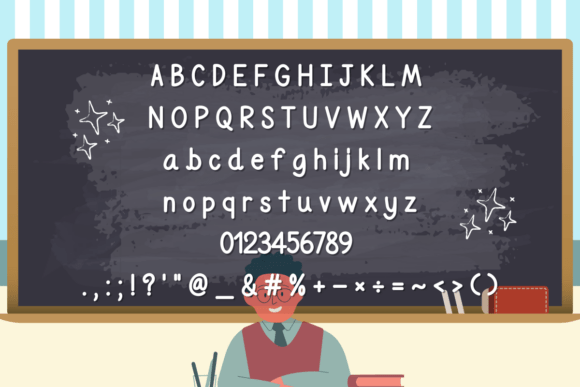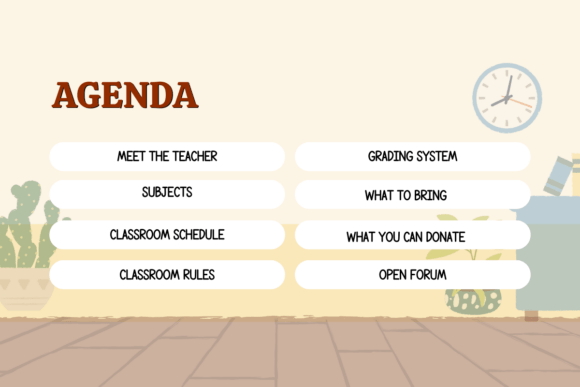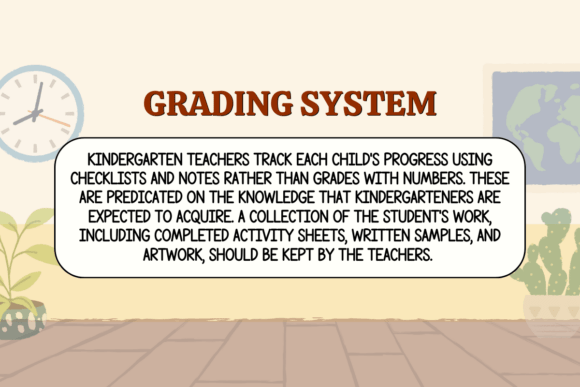
Introduction to Happy Teacher Font
Happy Teacher is a handwritten font.
You can use it for taking notes, writing a diary or making greeting cards However you can still use it for other designs such as banners content mugs cards shirts stationery social media posts and more.
Key Features of Happy Teacher Font
Why Choose Happy Teacher Font?
Happy Teacher Font offers exceptional quality and versatility, making it a valuable addition to your design toolkit. Whether you’re creating for personal projects or commercial use, Happy Teacher Font delivers professional results.